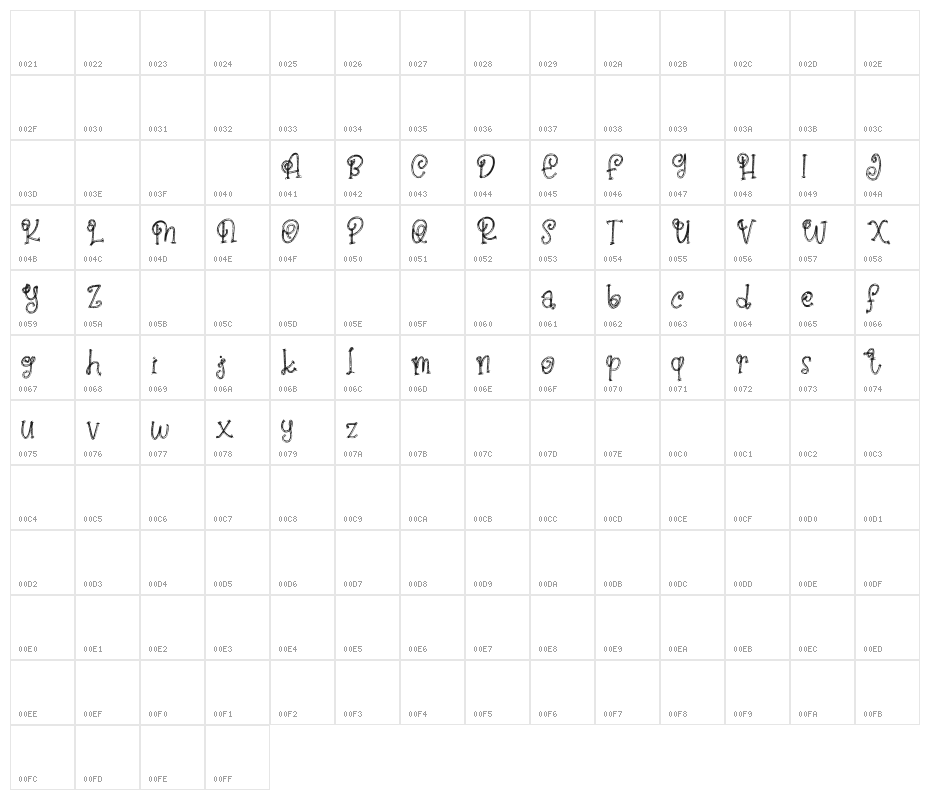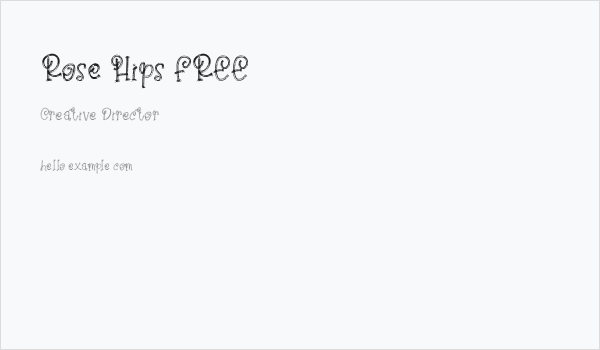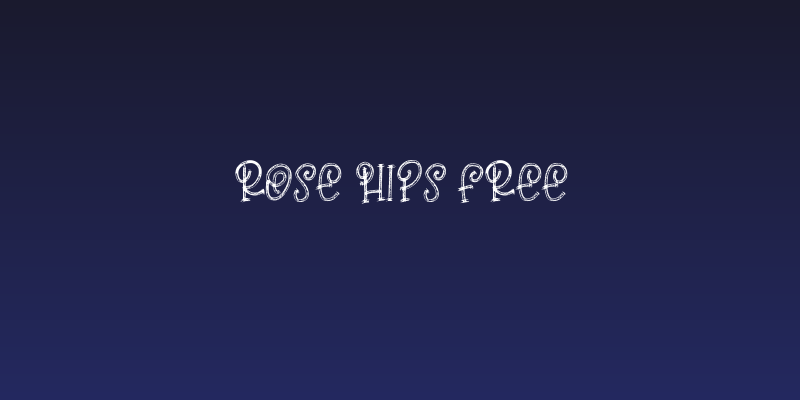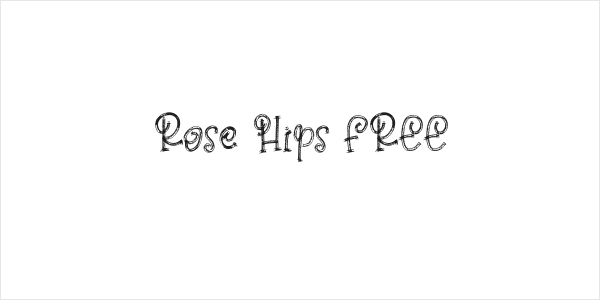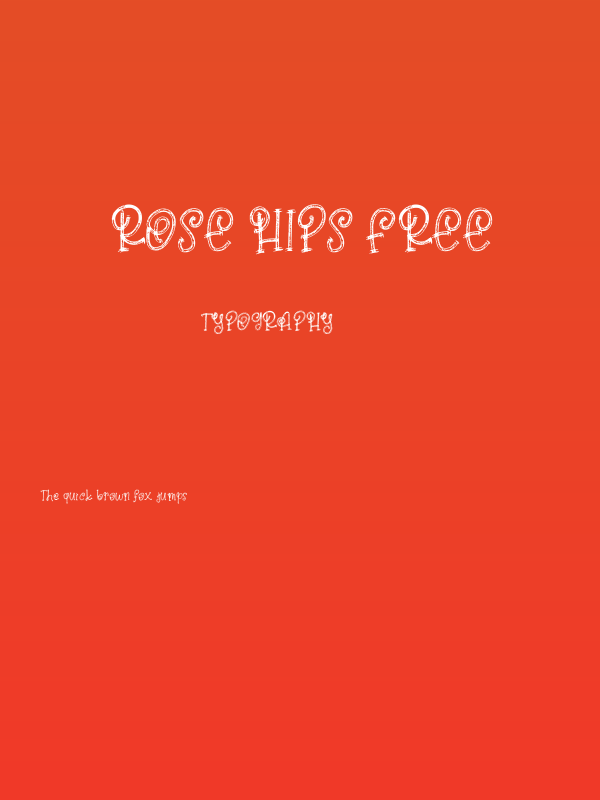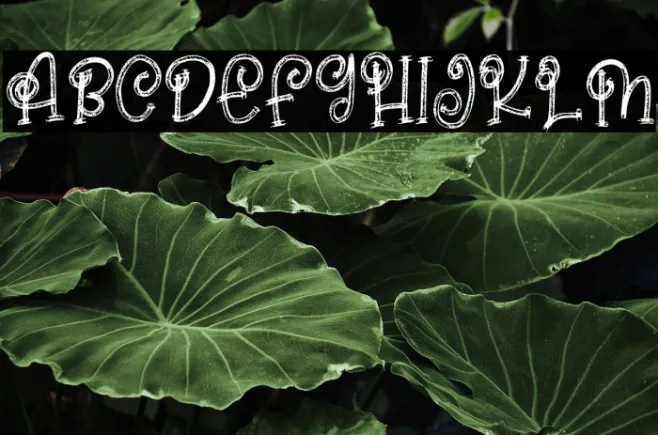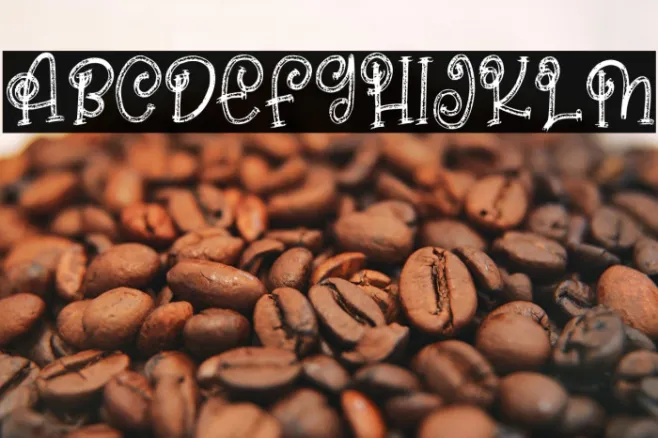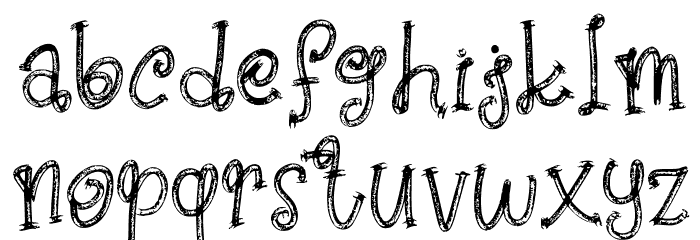
Rose Hips FREE Font
Rose Hips FREE Description
This font features a whimsical and playful design, characterized by its hand-drawn, sketch-like appearance. Each letter is adorned with intricate details, such as loops and swirls, giving it a unique and artistic flair. The strokes vary in thickness, adding to its dynamic and lively feel. The overall style is reminiscent of doodles or illustrations, making it stand out with its creative and imaginative look. It captures attention with its decorative elements while maintaining legibility. The font's quirky and fun nature makes it suitable for projects that require a touch of creativity and individuality.
| Proposed Projects | Ideal for children's books, creative posters, artistic branding, and playful invitations. |